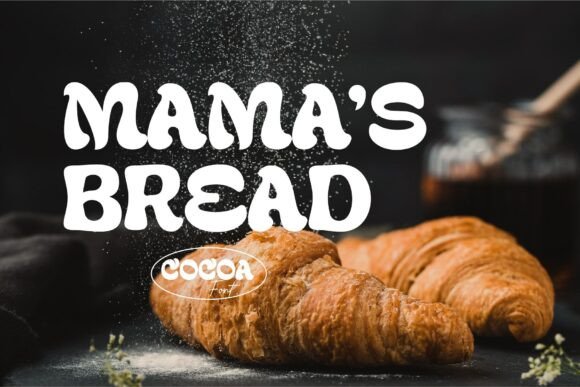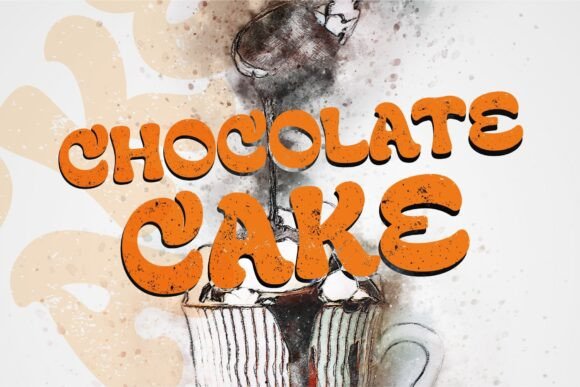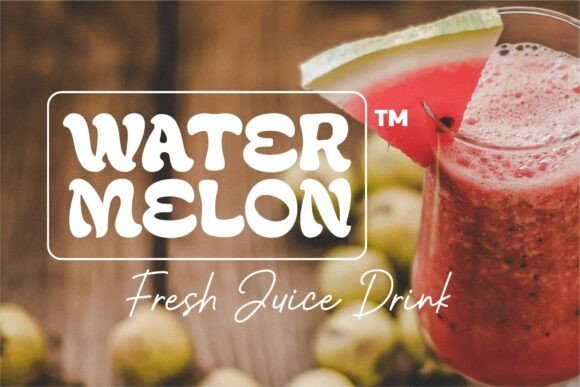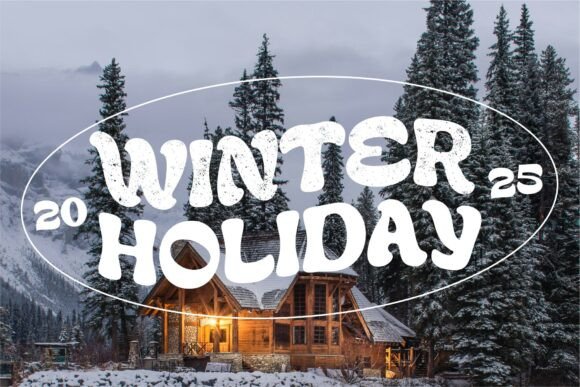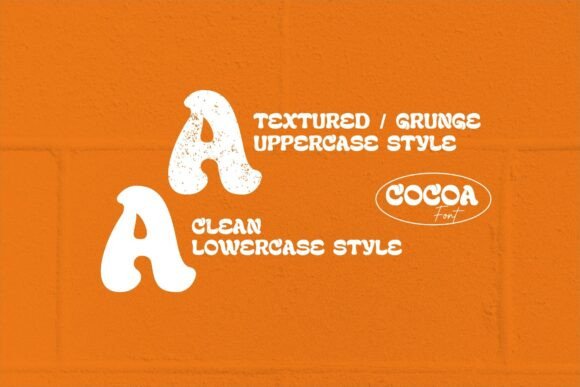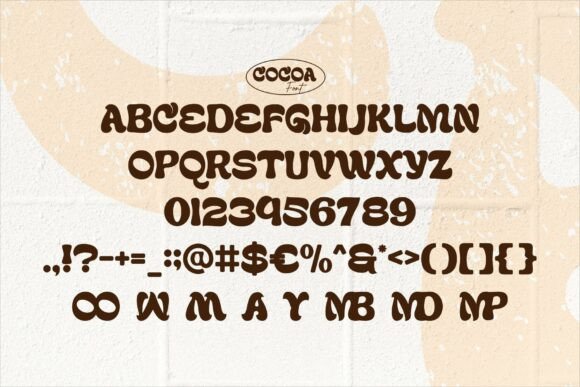
Introducing Cocoa: The Fun and Groovy Font for Foodies and Designers
Are you a designer or crafter looking for a font that adds a dash of fun and playfulness to your creations? Look no further than Cocoa, a vibrant and energetic font that’s perfect for branding food, drinks, and restaurants. With its cute shapes, multilingual support, and cool alternates, Cocoa is the ideal choice for creating vibrant logos, menus, packaging, and more.
A Font that’s as Sweet as Cocoa
Cocoa is a carefully crafted font that’s designed to bring a smile to your face. Its fun and groovy vibe makes it perfect for foodies, designers, and crafters who want to add a touch of whimsy to their designs. Whether you’re creating a logo for a trendy cafe, a menu for a bustling restaurant, or packaging for a gourmet food product, Cocoa is the perfect choice.
Key Features of Cocoa Font
• Multilingual Support: Cocoa supports multiple languages, making it a great choice for designers and businesses with a global audience.
• Cool Alternates: The font features a range of cool alternates that add a fresh, playful vibe to your designs.
• Cute Shapes: Cocoa’s cute shapes are perfect for creating fun and engaging designs that appeal to foodies and families.
• Vibrant and Energetic: The font’s vibrant and energetic vibe makes it perfect for creating eye-catching logos, menus, and packaging.
With Cocoa, the creative possibilities are endless. Here are just a few ideas to get you started:
• Logos: Create a fun and memorable logo for a food truck, cafe, or restaurant.
• Menus: Design a menu that’s as vibrant and energetic as the food itself.
• Packaging: Add a touch of whimsy to your product packaging with Cocoa’s cute shapes and cool alternates.
• Social Media Graphics: Create engaging social media graphics that showcase your brand’s personality.
Why Choose Cocoa Font?
So why choose Cocoa font for your next design project? Here are just a few reasons:
• Unique and Playful: Cocoa’s unique and playful vibe sets it apart from other fonts.
• Easy to Read: The font is easy to read, even at small sizes, making it perfect for menus and packaging.
• Highly Versatile: Cocoa can be used for a wide range of design projects, from logos and menus to packaging and social media graphics.
Get Creative with Cocoa Font
Cocoa Font in Action
Here’s an example of what you can create with Cocoa font:
Example of Cocoa font in use
In conclusion, Cocoa font is a fun and groovy font that’s perfect for branding food, drinks, and restaurants. With its cute shapes, multilingual support, and cool alternates, Cocoa adds a fresh, playful vibe to your designs. Whether you’re a designer, crafter, or foodie, Cocoa is the ideal choice for creating vibrant logos, menus, packaging, and more. So why wait? Download Cocoa font today and start getting creative!